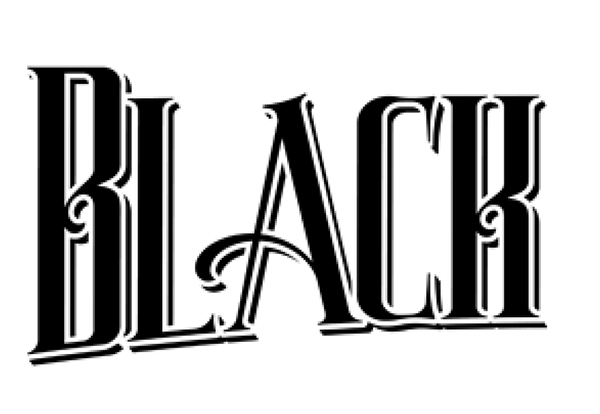
Cannot find a match for this font, although it does look familiar. Not sure if the “shadow” was an added effect or if the font types that way… thanks in advance for any help!